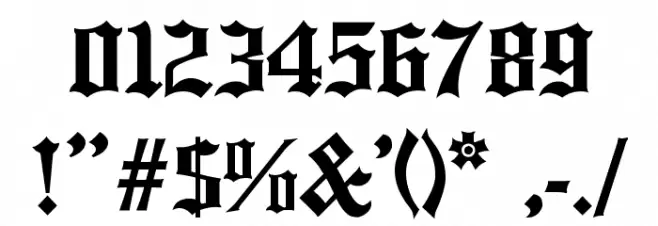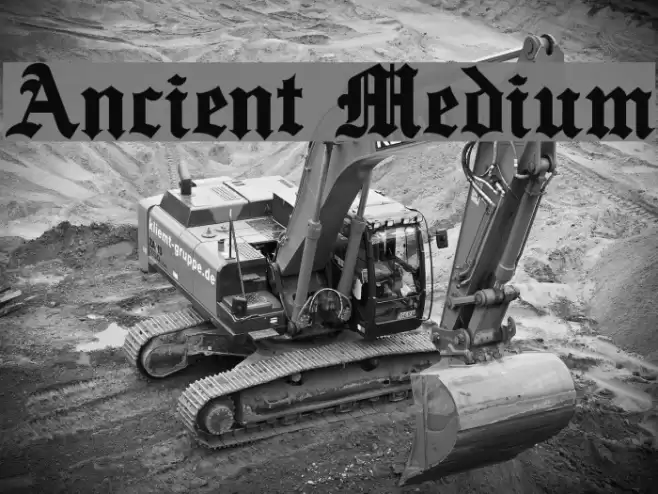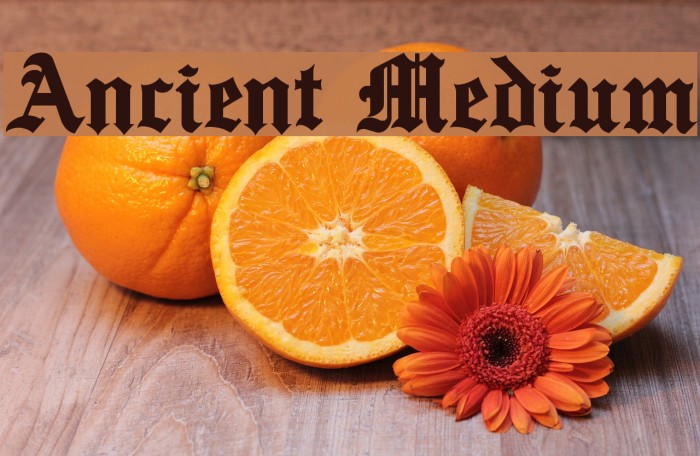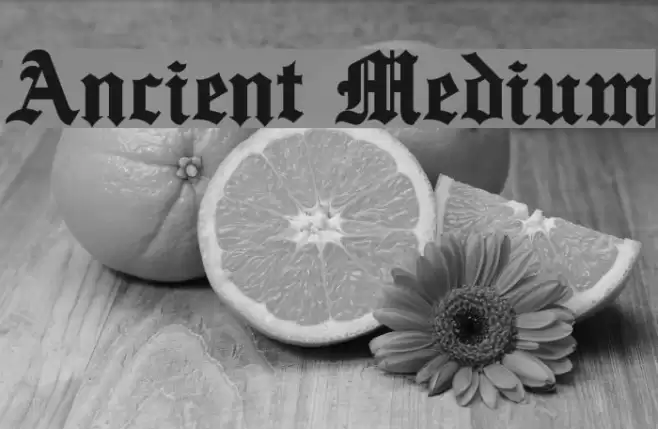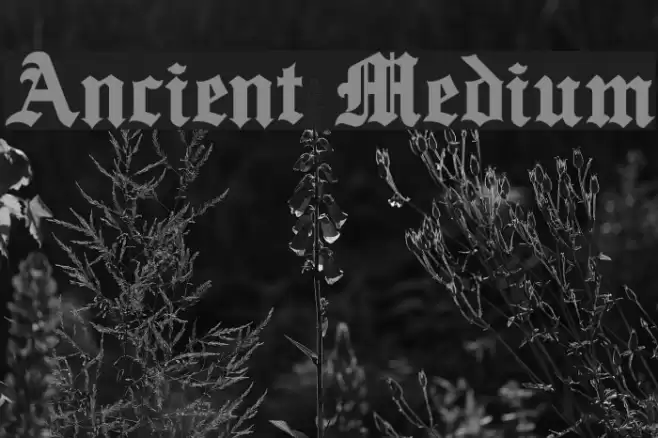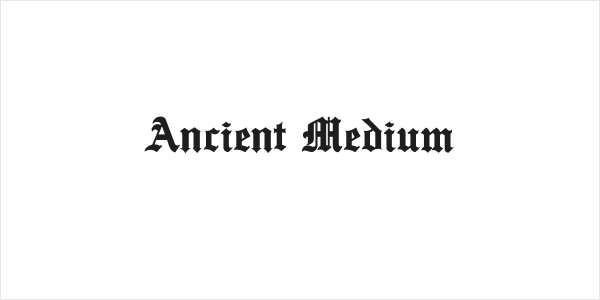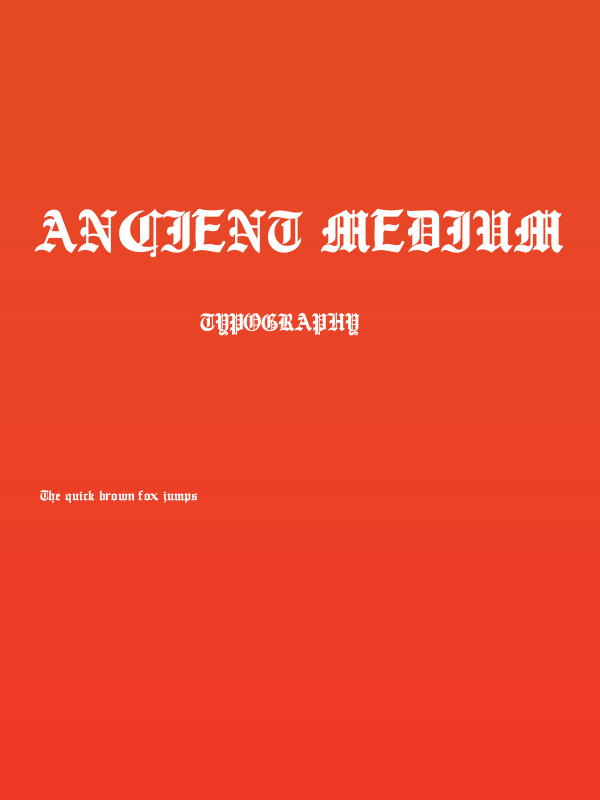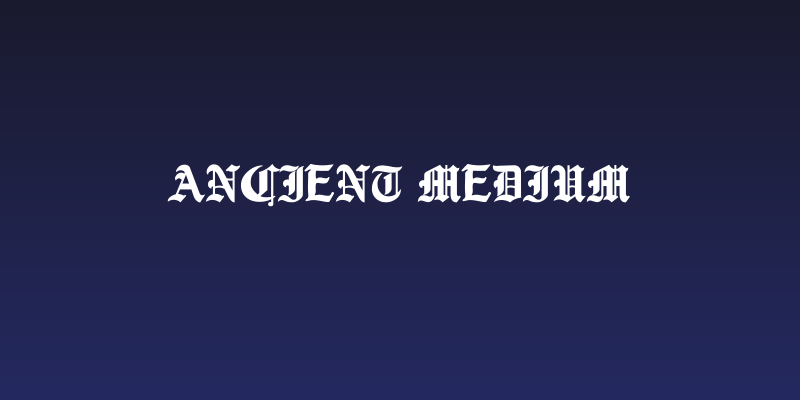
Ancient Medium Font
Ancient Medium Description
This font embodies the classic elegance of traditional blackletter styles, characterized by its intricate and ornate letterforms. The uppercase letters feature sharp, angular lines with decorative flourishes, while the lowercase letters maintain a consistent, bold appearance with a slightly condensed form. The numerals are distinct and maintain the same decorative style, ensuring readability while preserving the font's historical aesthetic. Special characters are crafted with the same attention to detail, making them suitable for a variety of uses. This font's bold strokes and high contrast between thick and thin lines give it a dramatic and impactful presence, ideal for projects that require a touch of vintage sophistication.
| Proposed Projects | Ideal for historical documents, wedding invitations, certificates, and branding that requires a vintage or gothic touch. |